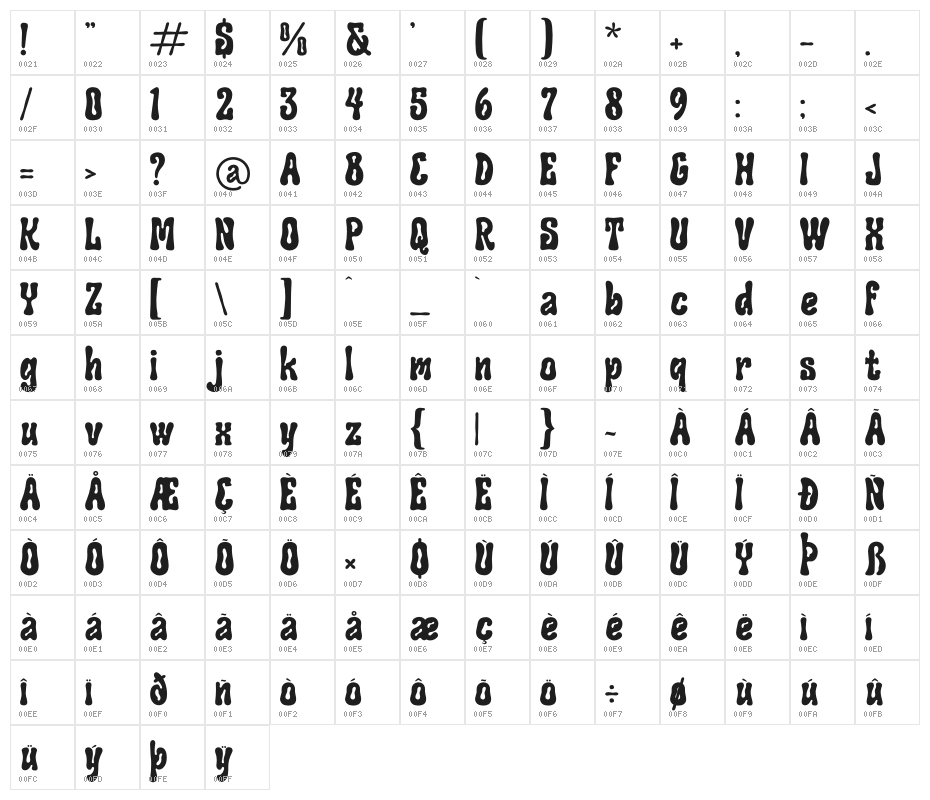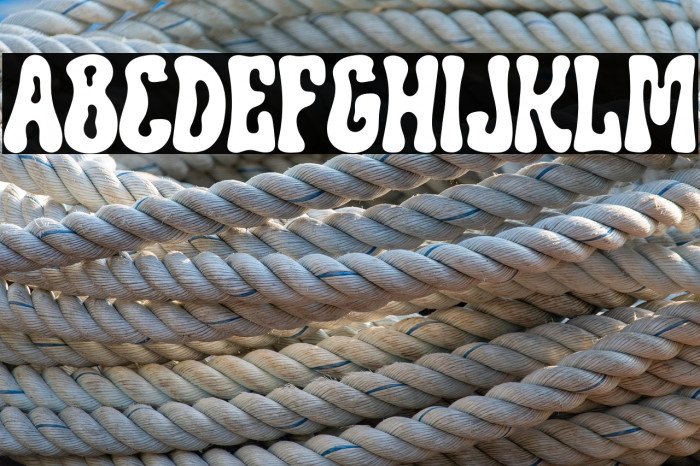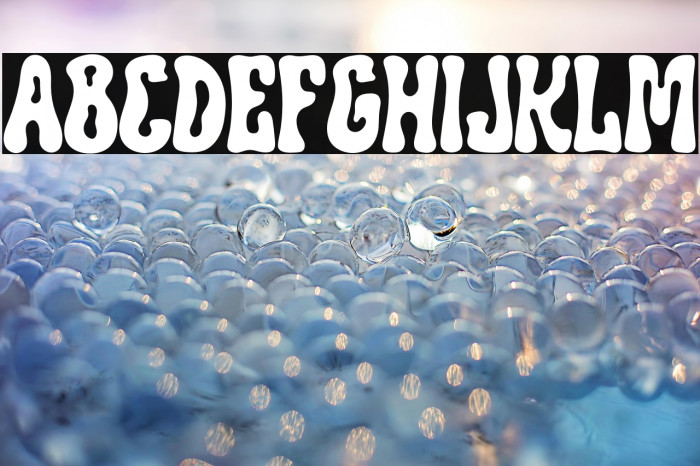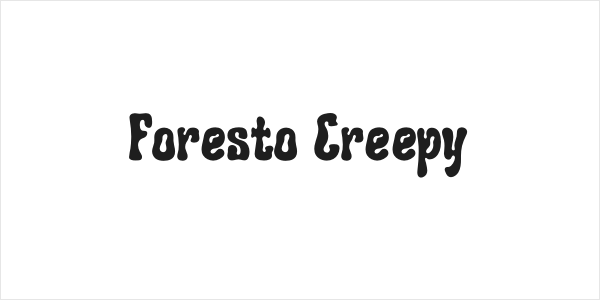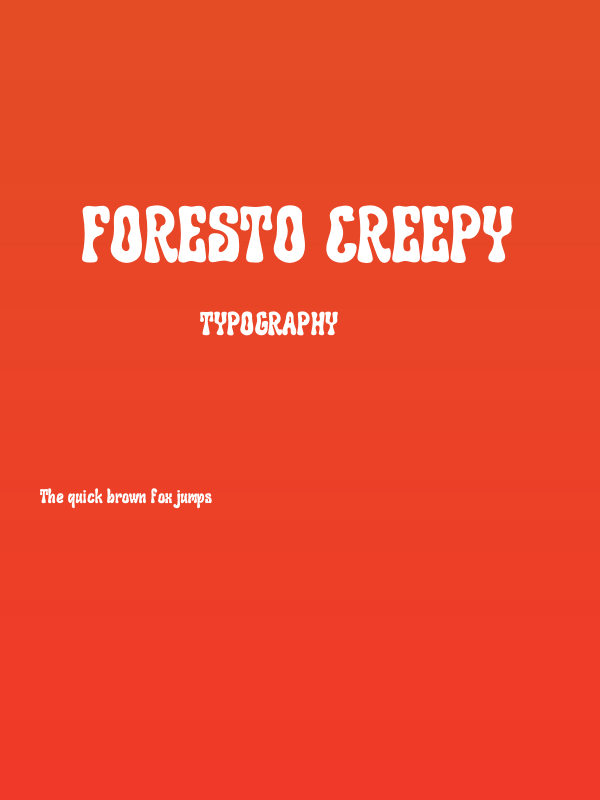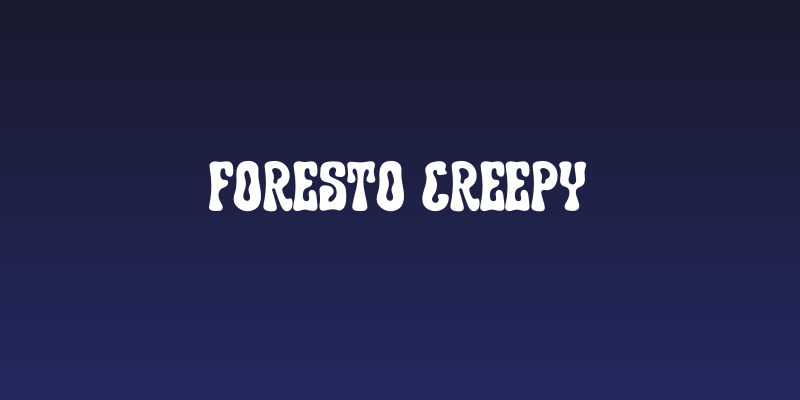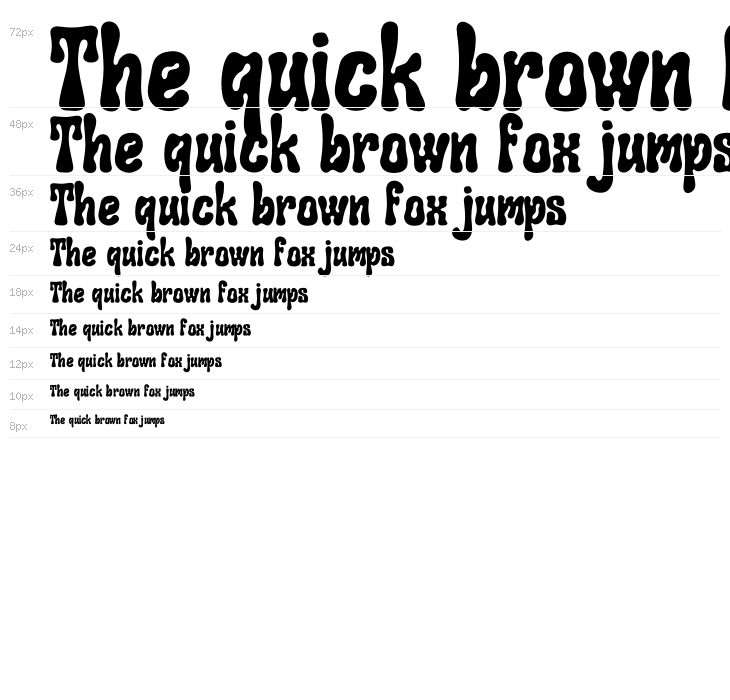
Foresto Creepy Font
Foresto Creepy Description
This font features a bold and playful design with a slightly eerie twist, making it perfect for Halloween or spooky-themed projects. The characters are rounded and thick, with uneven edges that give them a hand-drawn appearance. The uppercase and lowercase letters maintain a consistent style, with a whimsical and slightly distorted look. Numbers and special characters follow the same design principles, ensuring a cohesive appearance across all text elements. The font's unique style captures attention and adds a touch of fun and mystery to any design.
| Proposed Projects | Ideal for Halloween posters, themed party invitations, children's book covers, and playful branding. |